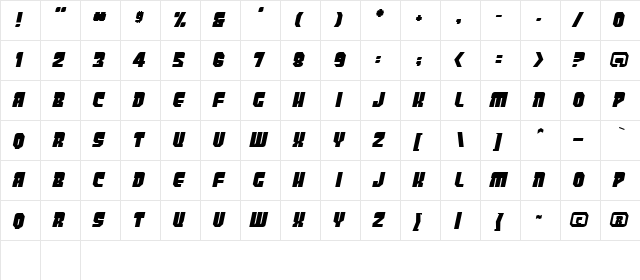
PanicButton BB Italic
Italic · Nate Piekos. Blambot.com Nate Piekos ·
Foundry Nate Piekos. Blambot.com
DesignerNate Piekos
Design Context for PanicButton BB Typeface
PanicButton BB is a composed and adaptable typeface that performs quietly and consistently across a wide range of design contexts. The dynamic lean of this cut emphasises speed and emphasis in any layout.
Pro Tip: Use PanicButton BB for emphasis, pull quotes, and subheadings where its slanted energy can add rhythm to the layout.